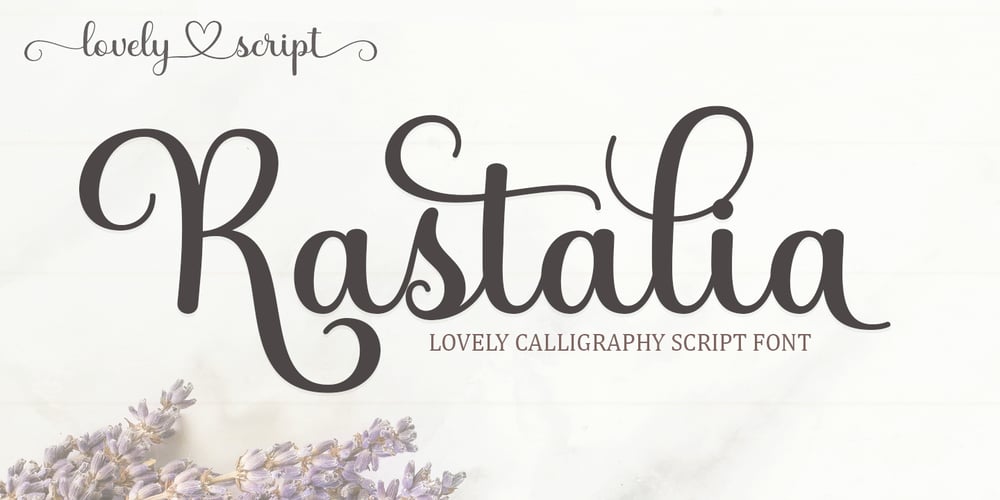
Rastalia Font Family was designed by Romi Rahmadi and published by Romie Creative. Rastalia contains 1 styles and family package options. Hi everyone, I would like to introduce my newest font. Rastalia Script is a beautiful modern calligraphy typeface, I hope you will be interested in this font, if you want to use it for your work.This font can be used easily and simply because there are many features in it. contains a complete set of upper and lowercase letters, a wide variety of punctuation marks, numbers, and multilingual support. fonts also contain a lotligatures and many others contain alternative Style Sets like the heart swash alternative.